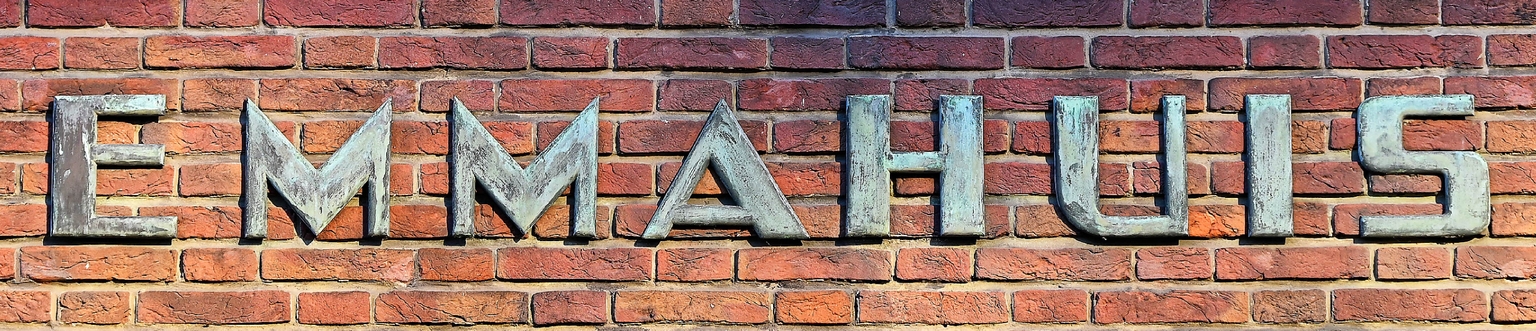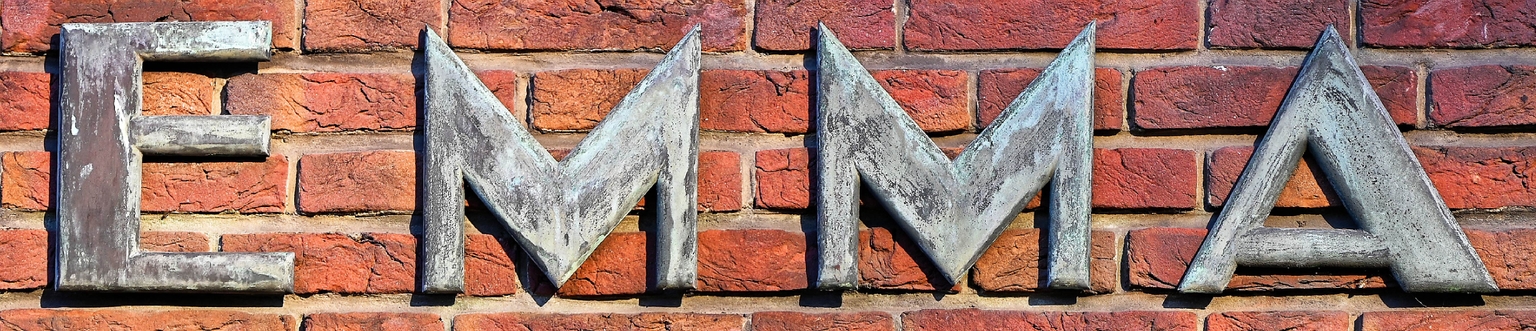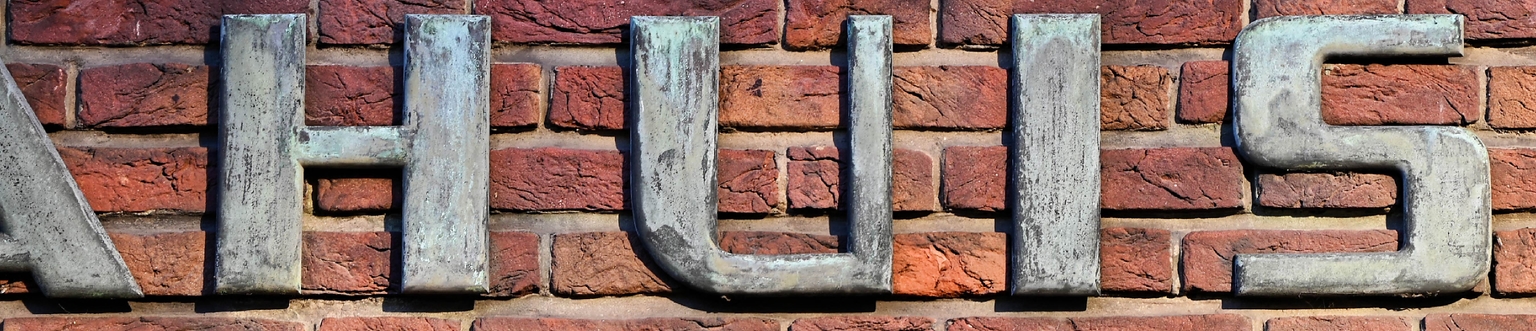
Emmahuis
Emmahuis is an expanded, modular sans typeface designed by Ramiro Espinoza, inspired by the distinctive lettering found at the entrance of the Emmahuis building at Schiekade 47, Rotterdam. This building was originally designed by the architecture firm P. Hooykaas & M. Lockhorst in the late 1920s and completed in 1932. Its lettering, probably designed by the same architects, exemplifies the sober, functional style of Dutch modernism, combining clarity with technical precision.
Espinoza carefully studied the original inscription’s geometric forms and modular construction to create Emmahuis, a typeface that balances strong presence with refined simplicity. Its expanded proportions and well-defined structure make it perfect for headlines, signage, branding, and any project seeking a contemporary take on historical architectural letterform.
More than a mere revival, Emmahuis reinterprets a piece of Rotterdam’s architectural heritage, translating its spirit into a versatile digital font. Now available through Brutal Types, Emmahuis invites designers to connect with a rich tradition of Dutch architecture through contemporary typography.